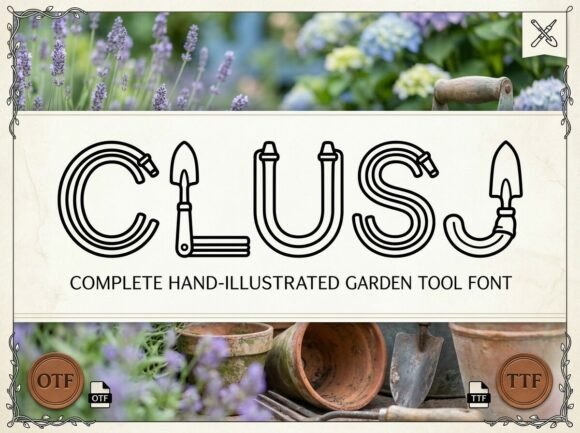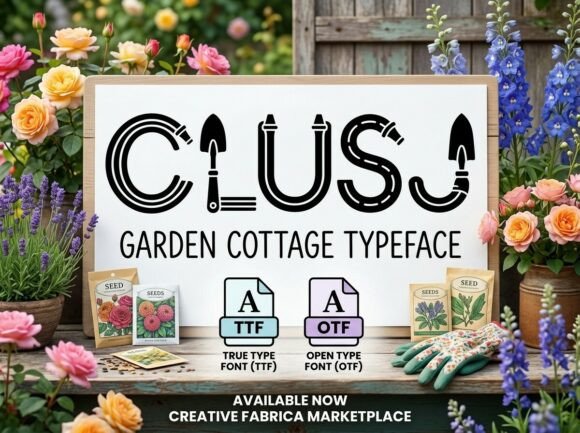
Introducing Clusj Font: The Ultimate Decorative Display Font for Creative Minds
Are you tired of using the same old fonts for your designs? Look no further! Clusj Font is a stunning decorative display font that is sure to grab attention and take your creative projects to the next level. With its unique artistic elements and strong visual personality, this font is perfect for designers, crafters, and creators who want to break away from the ordinary.
What Makes Clusj Font So Special?
Clusj Font is a versatile decorative font that is designed to be the center of attention. Its unique artistic elements and strong visual personality make it perfect for a variety of creative projects, including bold headlines, artistic logos, and creative packaging. Whether you’re a designer, crafter, or DIY enthusiast, this font is sure to inspire your creativity and help you create stunning visual content.
Key Features of Clusj Font
- Unique Artistic Elements: Clusj Font features unique artistic elements that set it apart from other fonts. Its intricate details and decorative flourishes make it perfect for creating visually stunning designs.
- Strong Visual Personality: This font has a strong visual personality that is sure to grab attention. Its bold and eye-catching design makes it perfect for headlines, logos, and other creative projects.
- Versatile: Clusj Font is versatile enough for use in a variety of creative projects, including bold headlines, artistic logos, and creative packaging.
- Professional and Polished Finish: Despite its decorative nature, Clusj Font maintains a professional and polished finish, making it perfect for use in high-end designs.
Why Choose Clusj Font?
There are many reasons why Clusj Font stands out from the crowd. Here are just a few:
- Unique Design: Clusj Font has a unique design that is sure to grab attention and set your designs apart from the crowd.
- Perfect for Creative Projects: This font is perfect for a range of creative projects, including bold headlines, artistic logos, and creative packaging.
Here are some tips and tricks for getting the most out of Clusj Font:
- Use it for Headlines: Clusj Font is perfect for headlines and titles. Use it to grab attention and add visual interest to your designs.
- Experiment with Colors: Clusj Font looks great in a range of colors. Experiment with different colors and combinations to find the one that works best for your design.
- Pair it with Other Fonts: Clusj Font can be paired with other fonts to create a unique and visually interesting design.
Clusj Font is a stunning decorative display font that is perfect for creative minds. With its unique artistic elements, strong visual personality, and versatility, this font is sure to take your designs to the next level. Whether you’re a designer, crafter, or DIY enthusiast, Clusj Font is a great choice for anyone looking to add a touch of creativity and elegance to their designs.